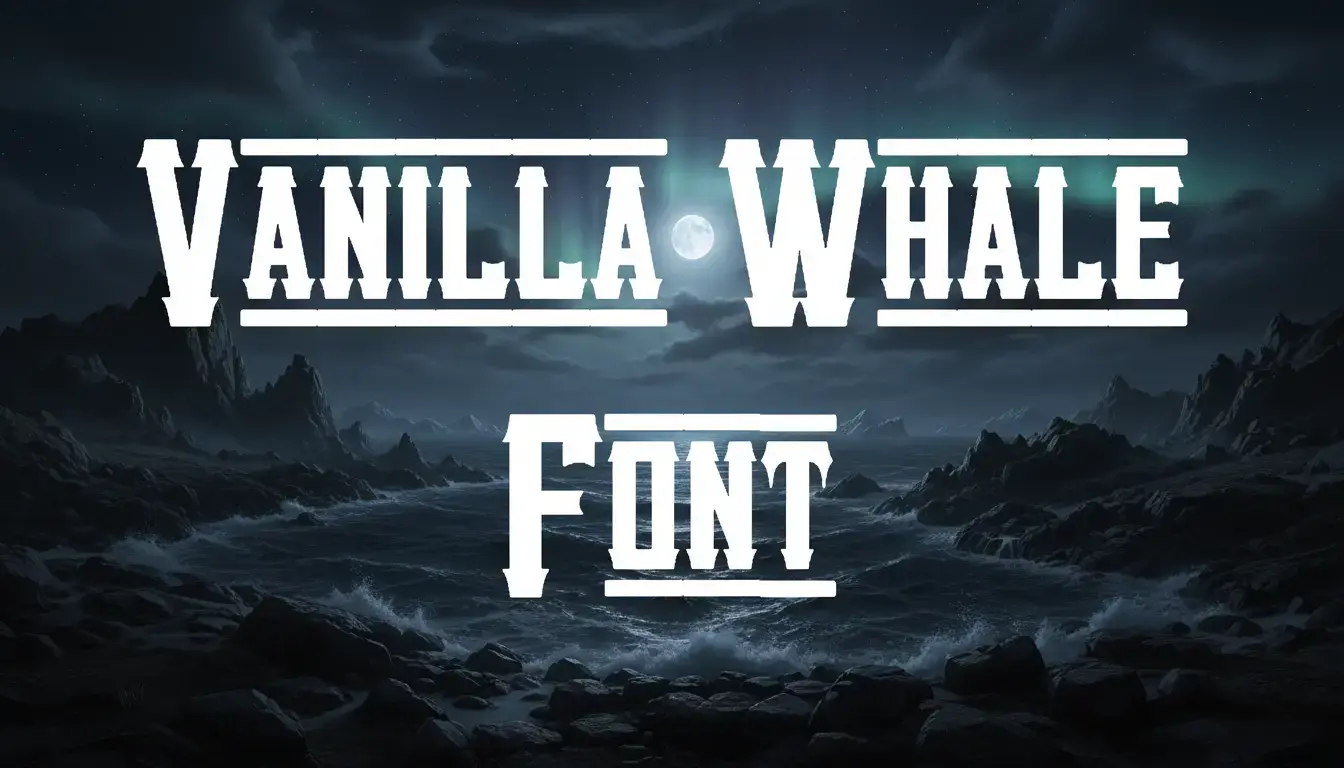
Vanilla Whale Font
Vanilla Whale
Vanilla Whale is a Western font created by Ray Larabie. It has the bold, wood-type look of Wild West wanted posters and saloon signs. It's a free download, and you can try it with your own text in the preview above first.
- Designer: Ray Larabie
What You Can Type With Vanilla Whale
You get every letter from A to Z in both cases and all the numbers from 0 to 9, which means Vanilla Whale can handle full sentences, dates and prices. Common punctuation such as &, !, ? and @ is included as well. It also has the accented letters you need for Spanish, French, German, Portuguese and Italian.
Where Vanilla Whale Works Best
Vanilla Whale is a natural fit for rodeo posters, saloon signs and country music flyers. Try it in brown, rust or cream on a paper texture for the full old-west look.
Does Vanilla Whale support accented letters?
Yes. Vanilla Whale includes the accented letters needed for Spanish, French, German, Portuguese and Italian, so it works for more than just English.
What fonts pair well with Vanilla Whale?
A sturdy slab serif or a simple serif works well for the smaller text.